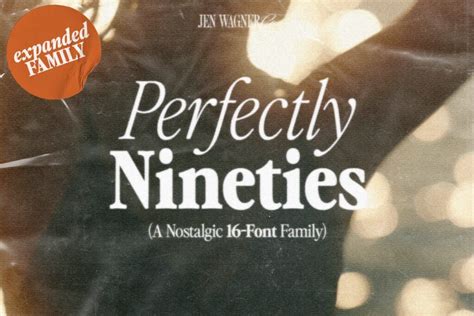
Perfectly Nineties Font. Web perfectly nineties is a beautifully nostalgic upper and lowercase typeface that looks incredible in both large and small settings.
Web perfectly nineties is a beautifully nostalgic upper and lowercase typeface that looks incredible in both large and small settings.
Web perfectly nineties is a beautifully nostalgic upper and lowercase typeface that looks incredible in both large and small settings. Web perfectly nineties is a beautifully nostalgic upper and lowercase typeface that looks incredible in both large and small settings.